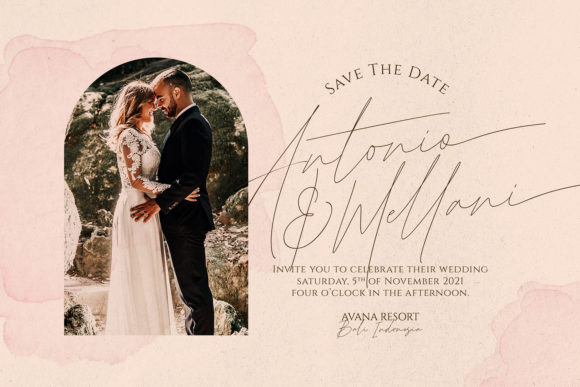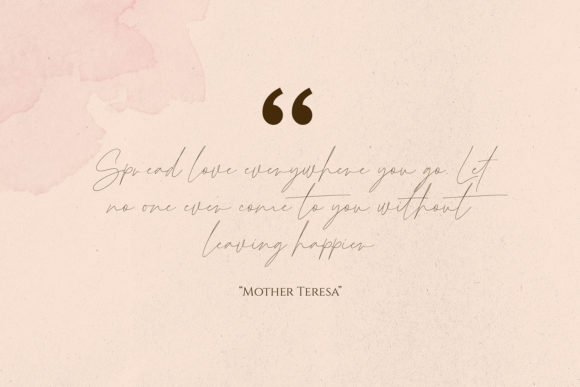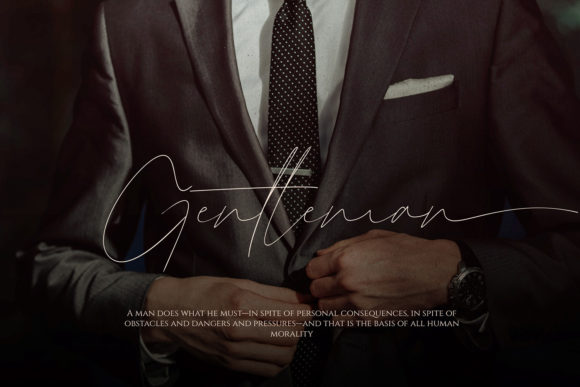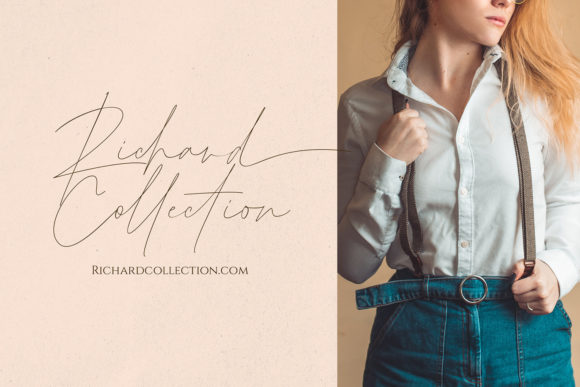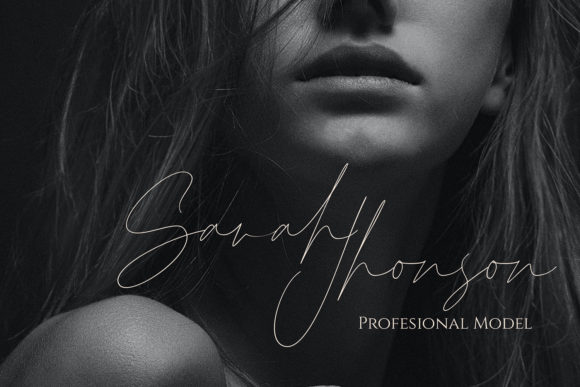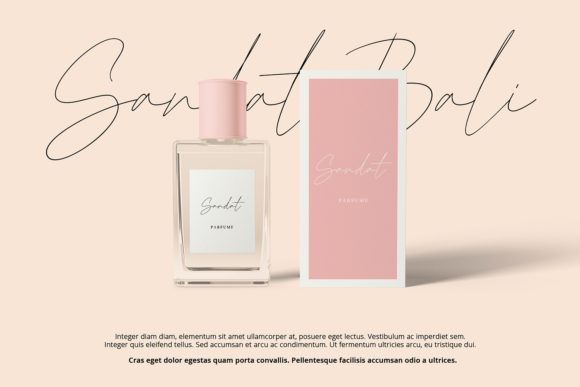
The Perfect Signature: Unleashing the Elegance of Arabilla Signature Font
There’s something magical about signing your name on a beautiful piece of art, a heartfelt letter, or a stunning design project. It’s a personal touch that adds a sense of authenticity and character. As designers, we’re always on the lookout for that special something to elevate our creations and make them truly unforgettable.
Enter the Arabilla Signature Font, a luxurious script font that embodies the essence of sophistication and elegance. With its clean, thin, and smooth vibe, this font is sure to add a touch of refinement to any design. Whether you’re creating a wedding invitation, a logo, or a business card, the Arabilla Signature Font is the perfect companion to help you make a lasting impression.
What sets the Arabilla Signature Font apart is its PUA encoding, which allows for seamless access to all its glyphs and swashes. This means you can experiment with different styles and combinations to create a truly unique look that reflects your personal brand or aesthetic. With the Arabilla Signature Font, the possibilities are endless, and the results are guaranteed to be nothing short of stunning.
Key Features of Arabilla Signature Font
- Font Family: Arabilla Signature Font is a unique, hand-drawn script font designed for personal and professional use.
- Character Set: Includes a wide range of characters, including uppercase and lowercase letters, numbers, punctuation marks, and special characters.
- Unique Characteristics: Features a distinctive, flowing script style with subtle variations in letterforms, adding a touch of elegance and sophistication to any design.
Arabilla Signature Font Review
Overall, I’m quite impressed with the Arabilla Signature Font. It’s a beautiful, elegant script font that’s perfect for adding a touch of sophistication to your designs. ✨
- Unique, handwritten feel that sets it apart from other fonts.
- High-quality, detailed strokes and flourishes that give it a premium look.
- Works well for both digital and print designs.
- Available in a range of weights and styles to suit different design needs.
However, there are a few limitations to consider. ⚠️
- The font may not be suitable for body text due to its decorative nature.
- Some characters may not be as clear or readable at smaller font sizes.
- Not all characters are fully supported in certain operating systems or software.
Overall, I’d highly recommend the Arabilla Signature Font for designers looking to add a touch of elegance and sophistication to their designs. While it may have some limitations, its unique look and feel make it a valuable addition to any font collection.
The Arabilla Signature Font is ideal for:
Personal branding and logo design.
Stationery and business card design.
Wedding invitations and event design.
Any project requiring a unique, elegant font.